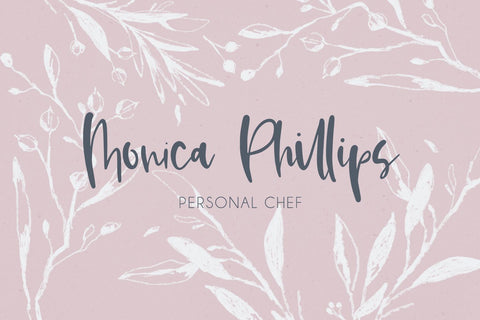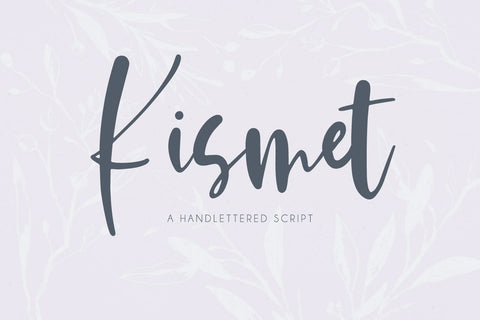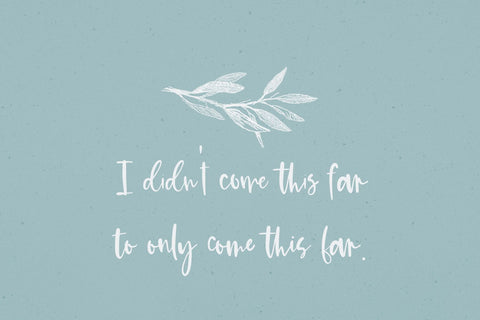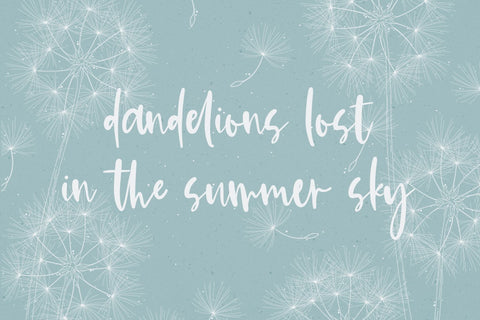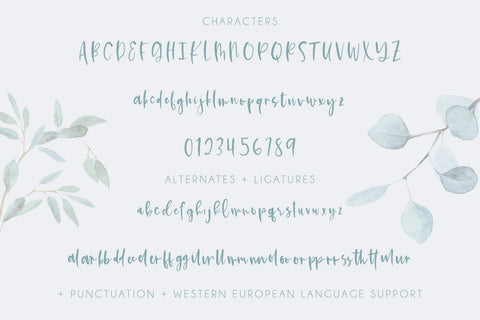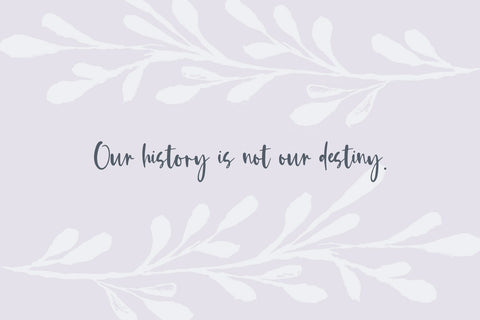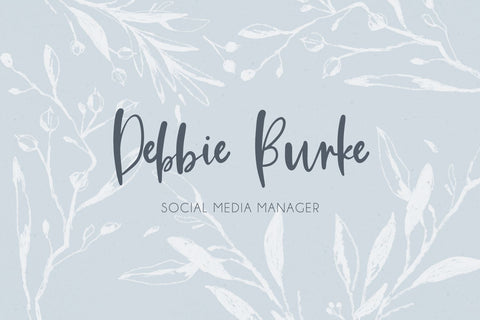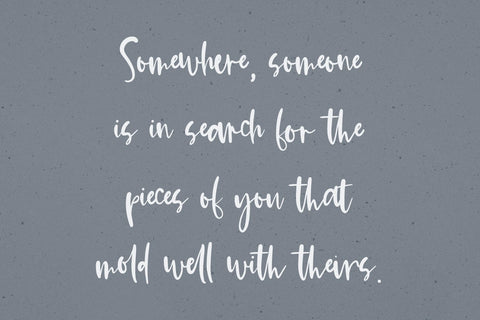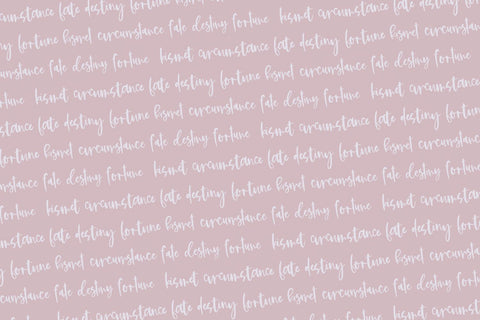
Kismet Handwritten Script Font
Introducing Kismet, handlettered script font. Kismet’s destiny is to be added to your font collection. Kismet Script is the perfect combo of a little bubbly + a little messy. Kismet includes a set of lowercase alternates and some ligatures so that you can customize your text just a bit more!
Kismet Script is an excellent fit for:
- logo design + branding projects
- print design, like magazines & flyers that need a bold, slightly feminine script
- header elements + websites that draw attention
- quote graphics for social media
- crafting with a Silhouette or Cricut machine - it has a super clean edge for easy cutting!
Kismet Script includes:
- full upper + lowercase characters
- numbers + punctuation
- Western European Language Support
- 26 alternates
- 24 ligatures